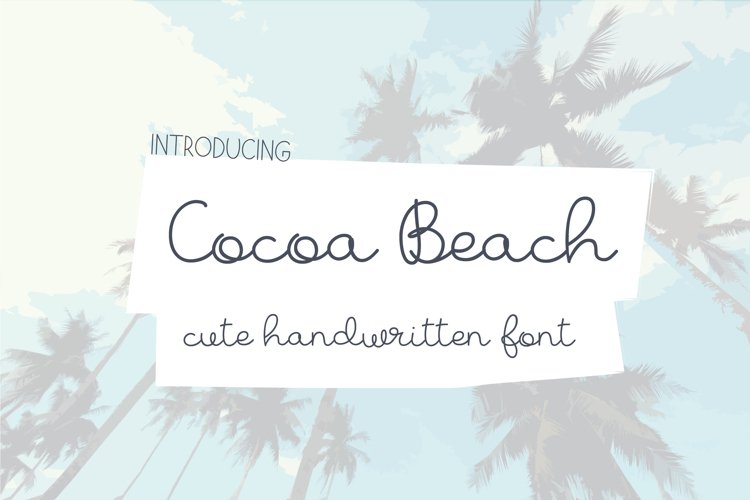
Cocoa Beach
Cocoa Beach is a cute monoline handwritten font. It resembles cursive handwriting and has a friendly feel.
It includes accents for European languages.